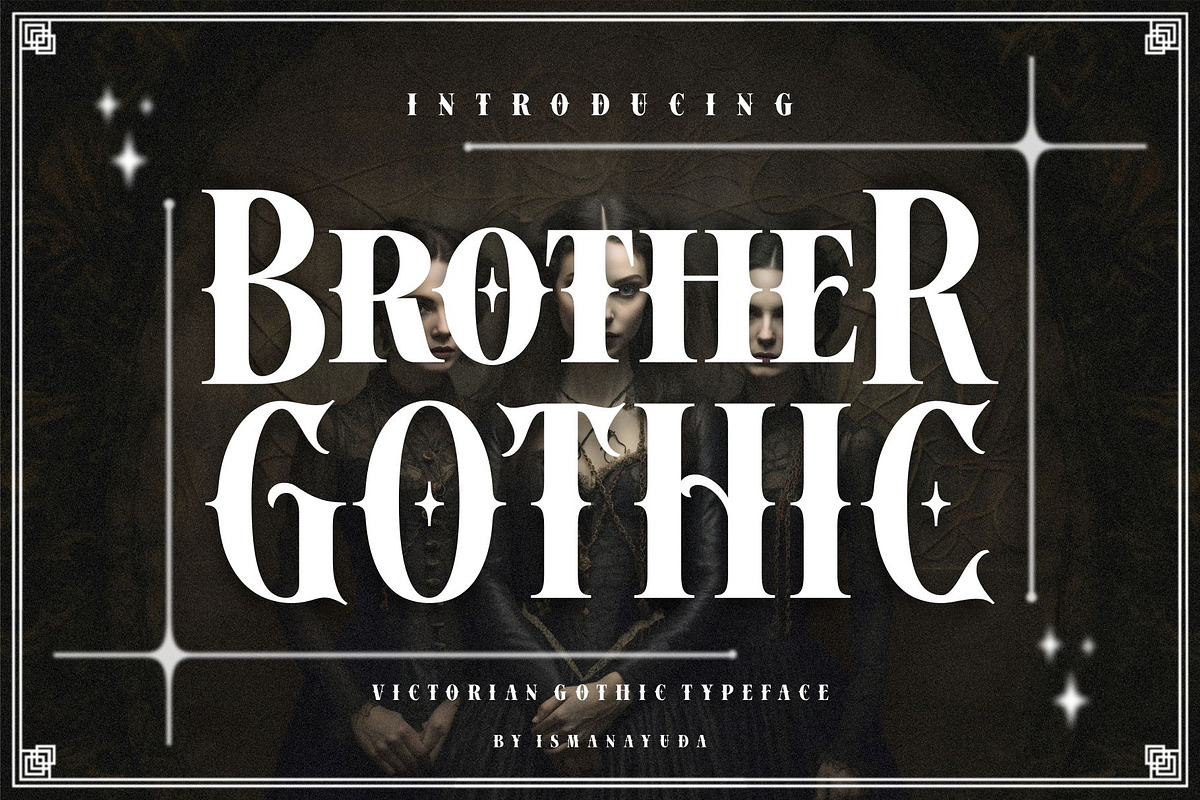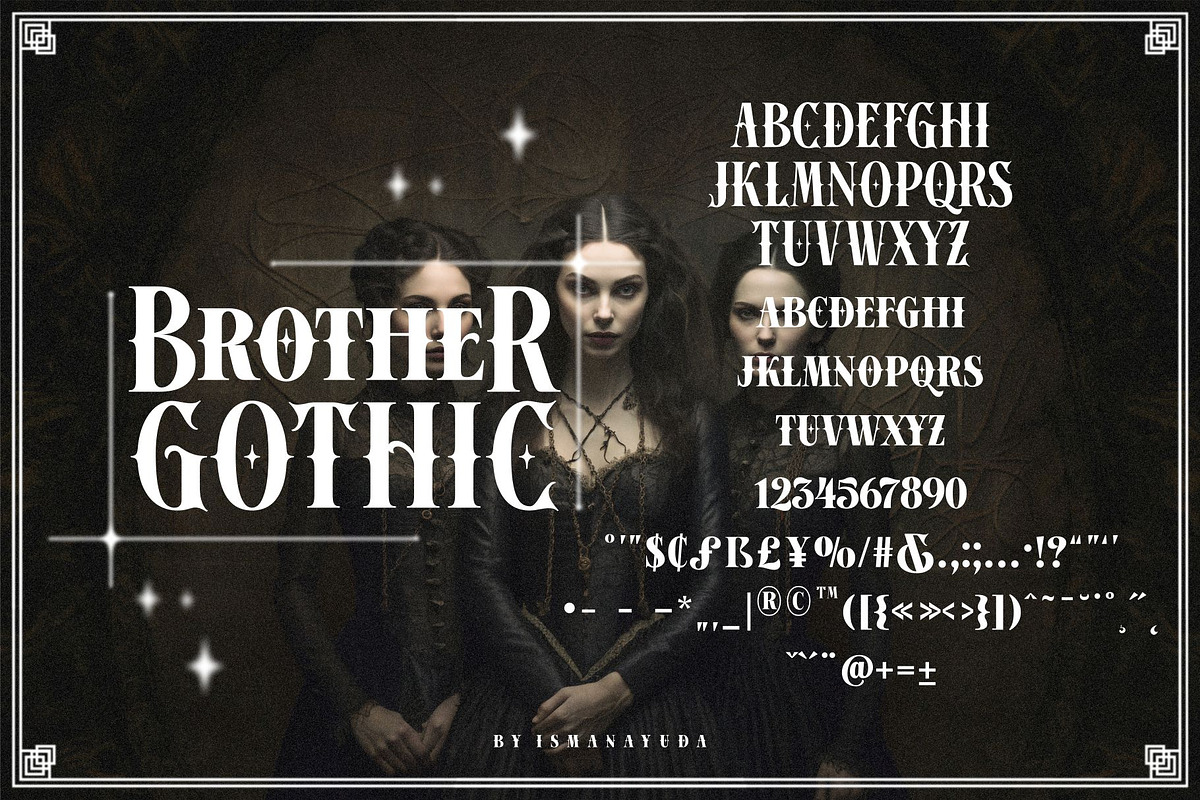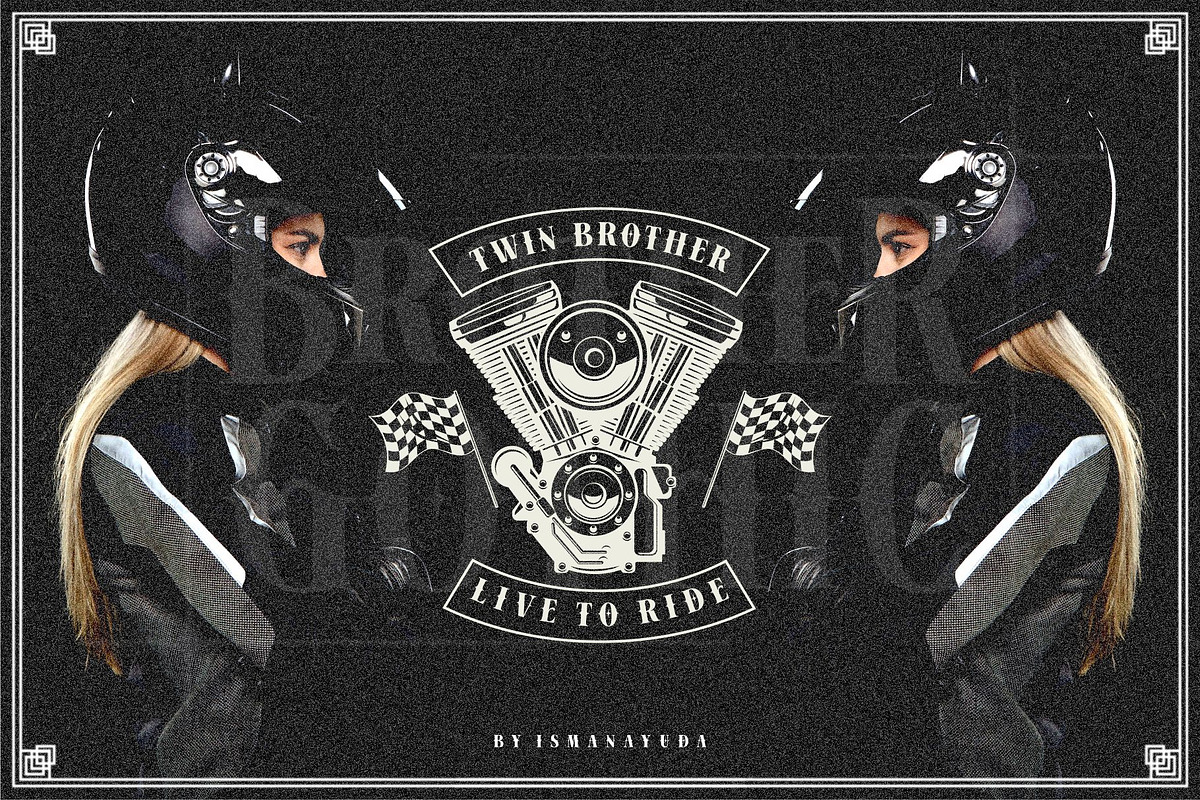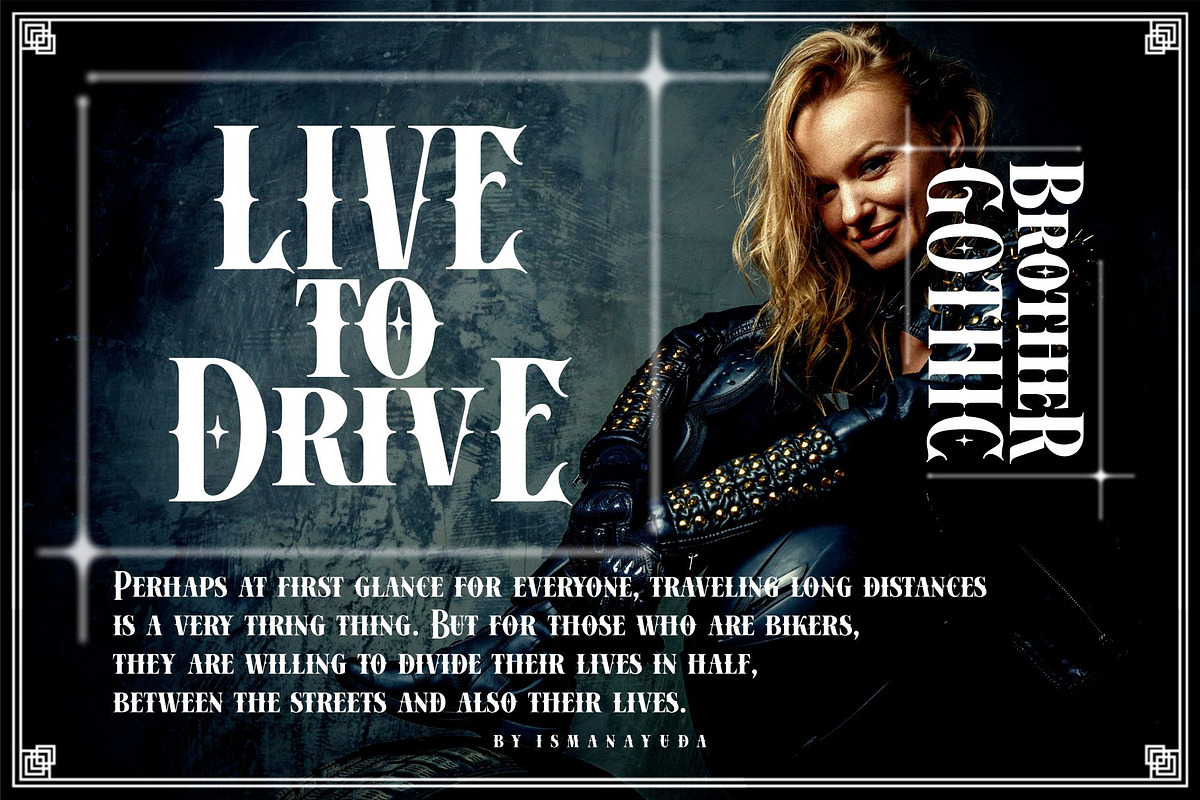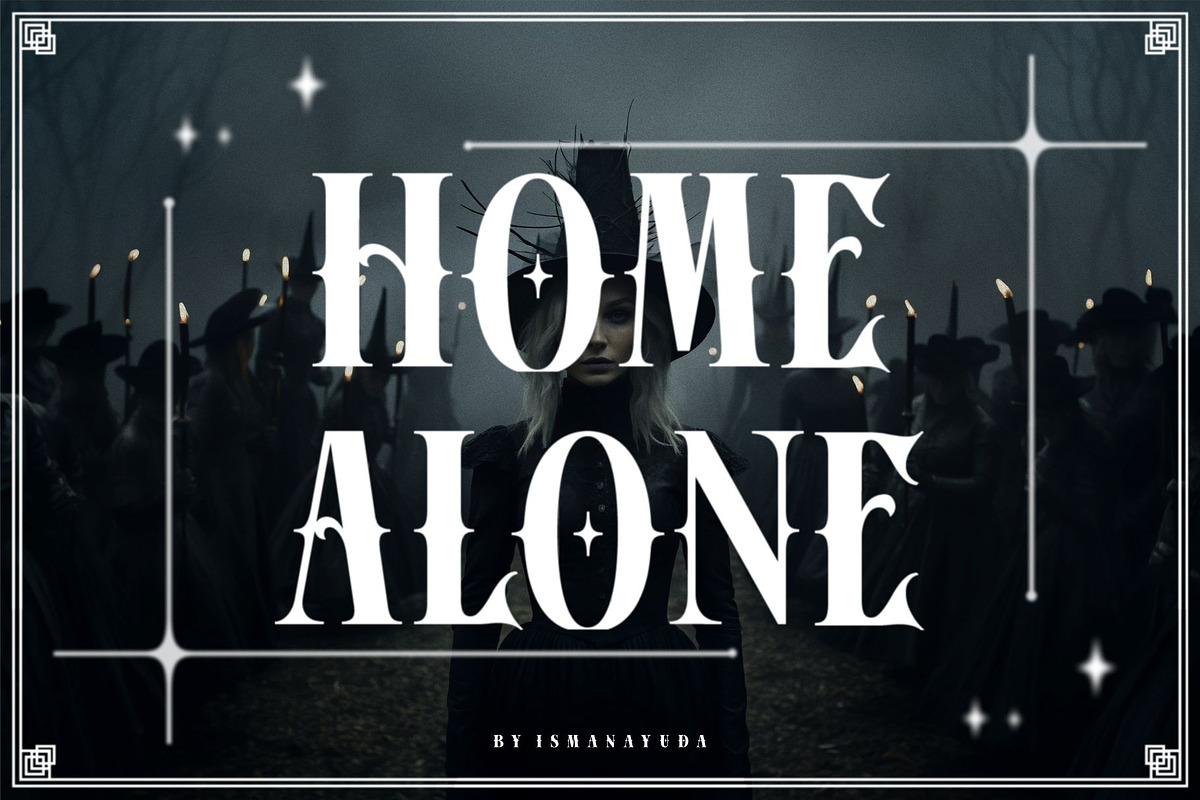
BROTHER GOTHIC
Introducing our new font, which we named "BROTHER GOTHIC". This font carries the style of a Victorian typeface, but we give it a gothic and biker feel. So this font can be used more widely.